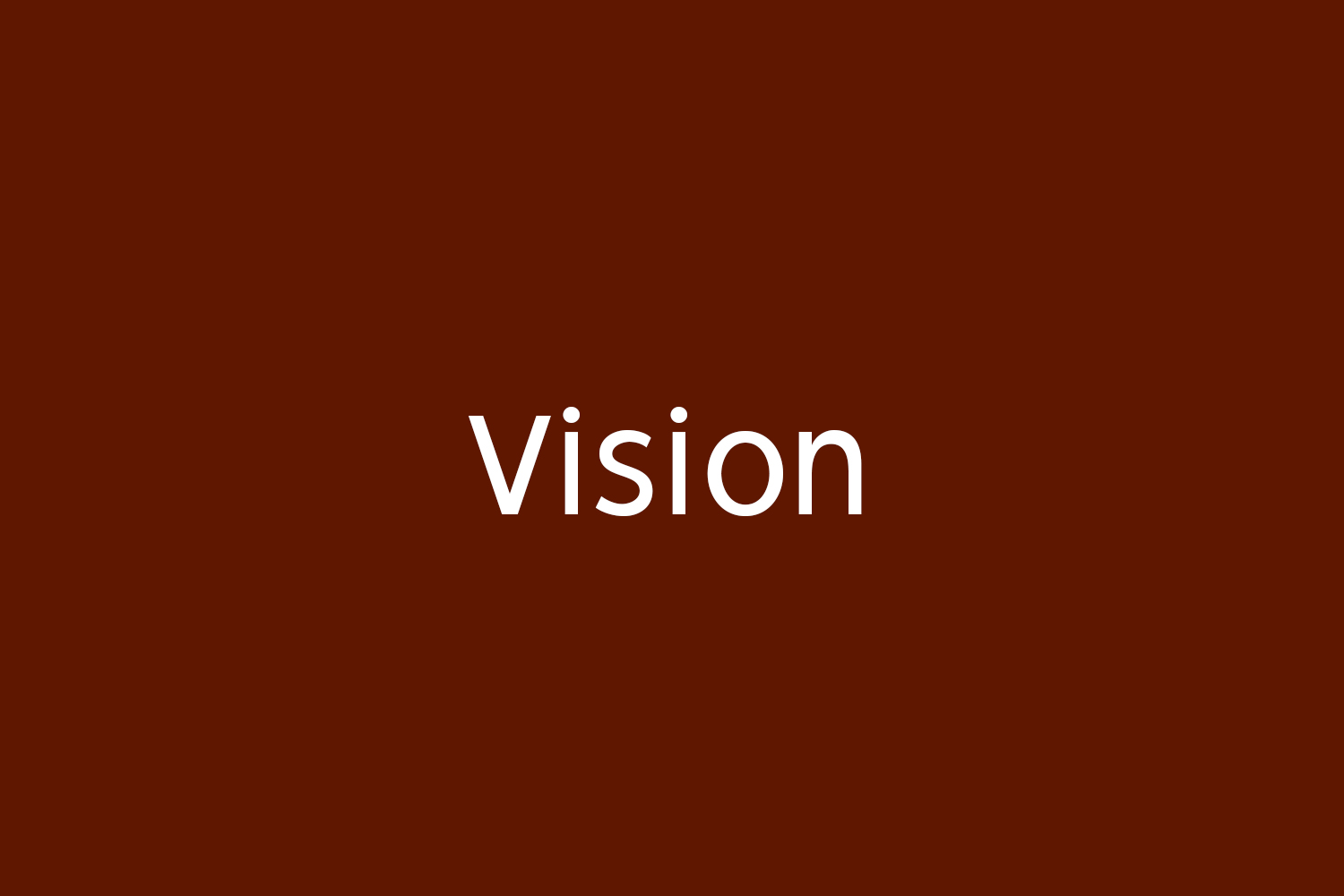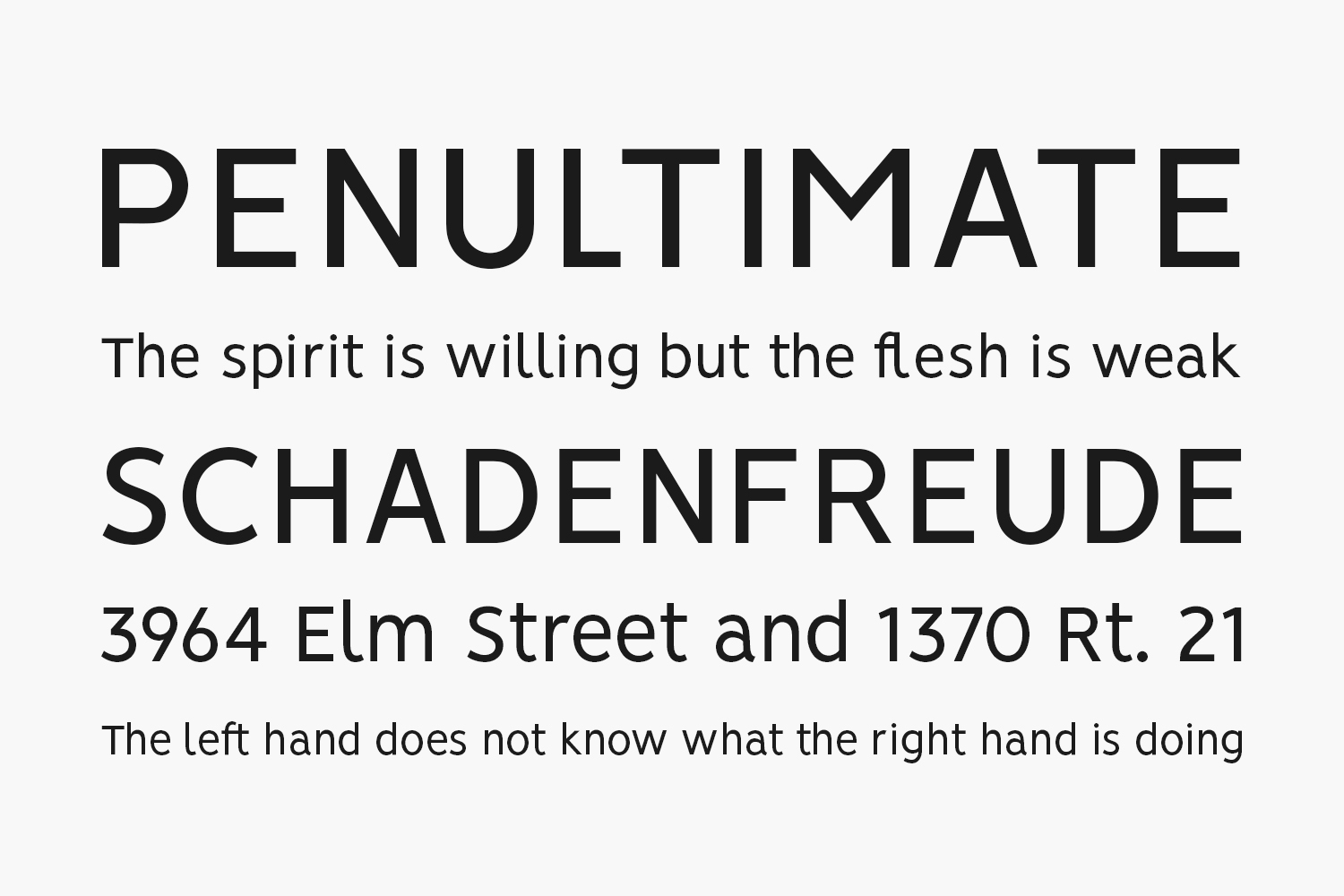
Vision Free Font Family is a clean, geometric sans serif with humanist touch. The type family consists of 12 fonts.
It’s design started as an exploration of geometric forms from early 20th century Lissitzky’s prouns. Perfect for display and small text, it’s born to be versatile, a clear and modern font with great legibility in large and short texts. In addition, it has extended ligatures, OpenType features and alternative glyphs which provide flexibility and uniqueness wherever it is placed.